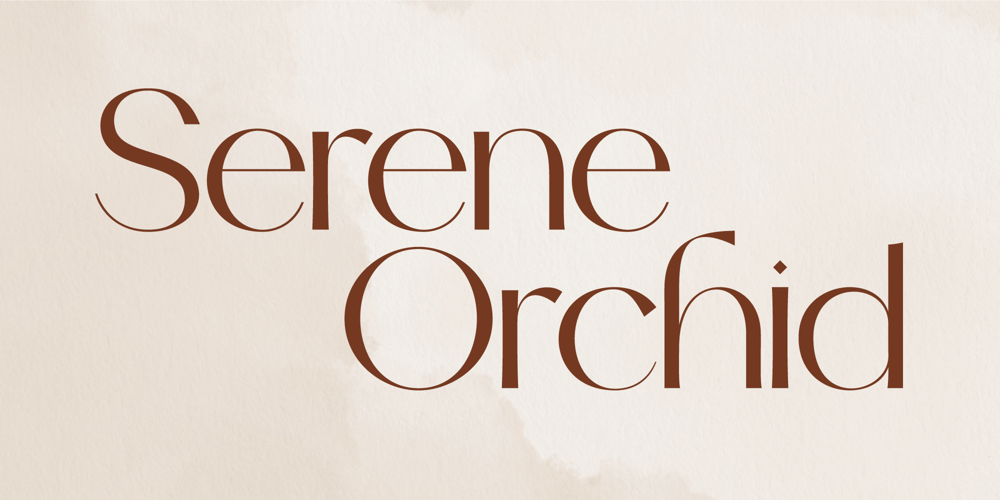
Serene Orchid
Serene Orchid font
Serene Orchid Font Family was designed by Zak M and published by Prestige Artsy Studio. Serene Orchid contains 1 styles and family package options. Introducing Serene Orchid a revolutionary new sans serif font! This modern and evolutionary font combines sleek, minimalistic design with the latest technological advancements to create a font that is truly one-of-a-kind.Serene Orchid font offers a wide range of stylistic sets, giving designers and creatives ample options to choose from. From elegant to edgy styles, this font can be used to bring any project to life.The design of this font is inspired by the natural evolution of design and typography. It embraces the latest trends while staying true to the fundamental principles of typography, resulting in a font that is both timeless and contemporary.The unique spacing and letter formation of Serene Orchid font ensures perfect readability and legibility for any project, and its compatibility with all major design software ensures ease of use.Whether you are using this font for brand identity, packaging, editorial design or anything else, this modern and evolutionary sans serif font is sure to make your projects stand out. Try it out today and see the difference for yourself!